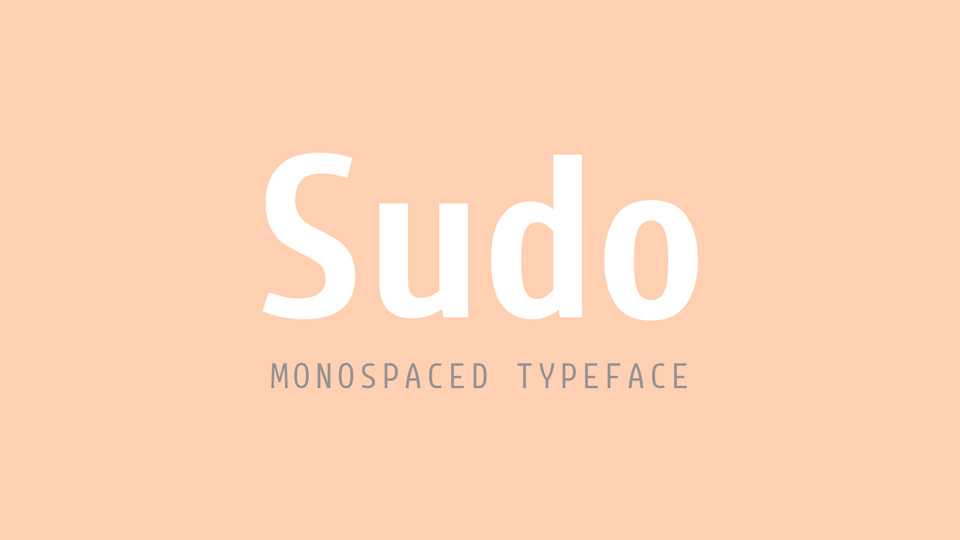
Download Sudo font, a monospaced typeface in 5 weights with matched Italics, including variable font. Sudo designed for terminal and programming, it’s legible, space-efficient and unique.
Designer: Jens Kutilek